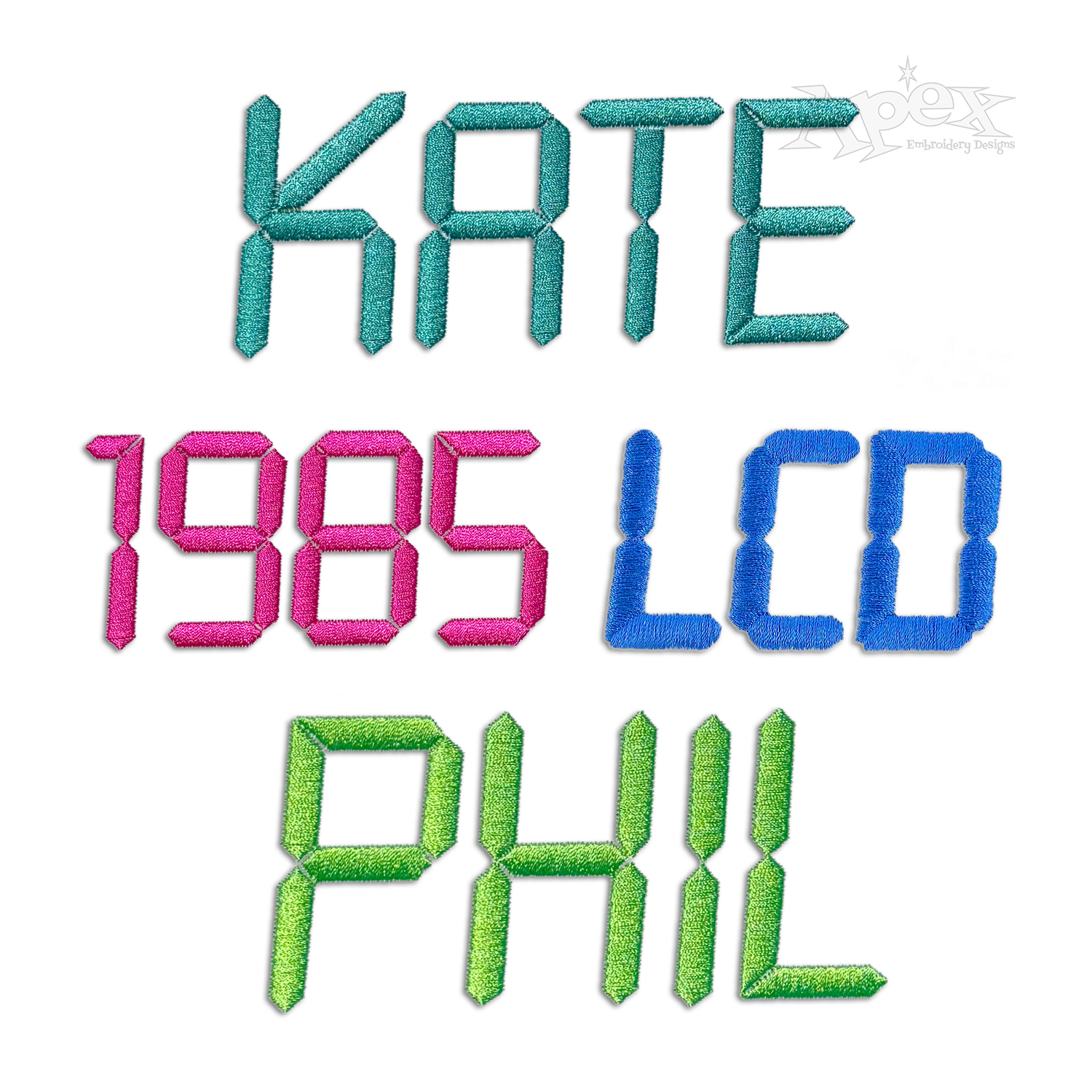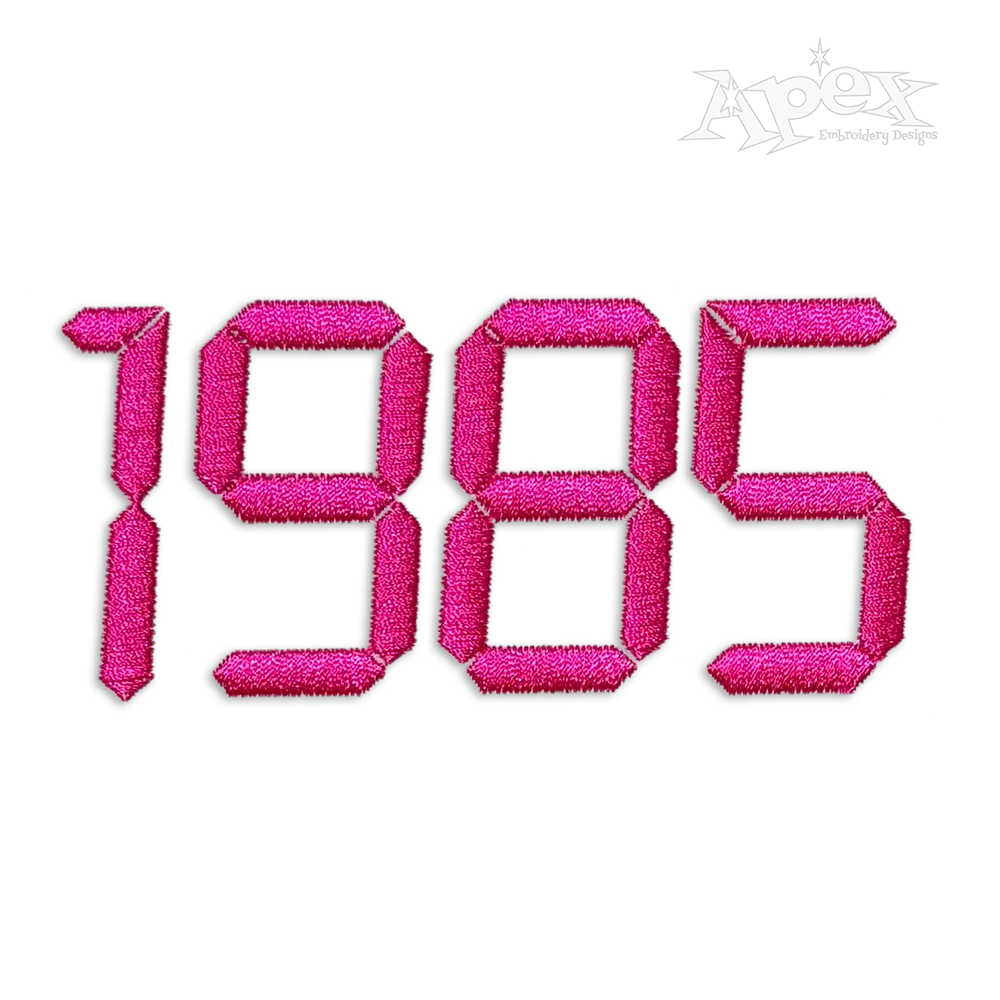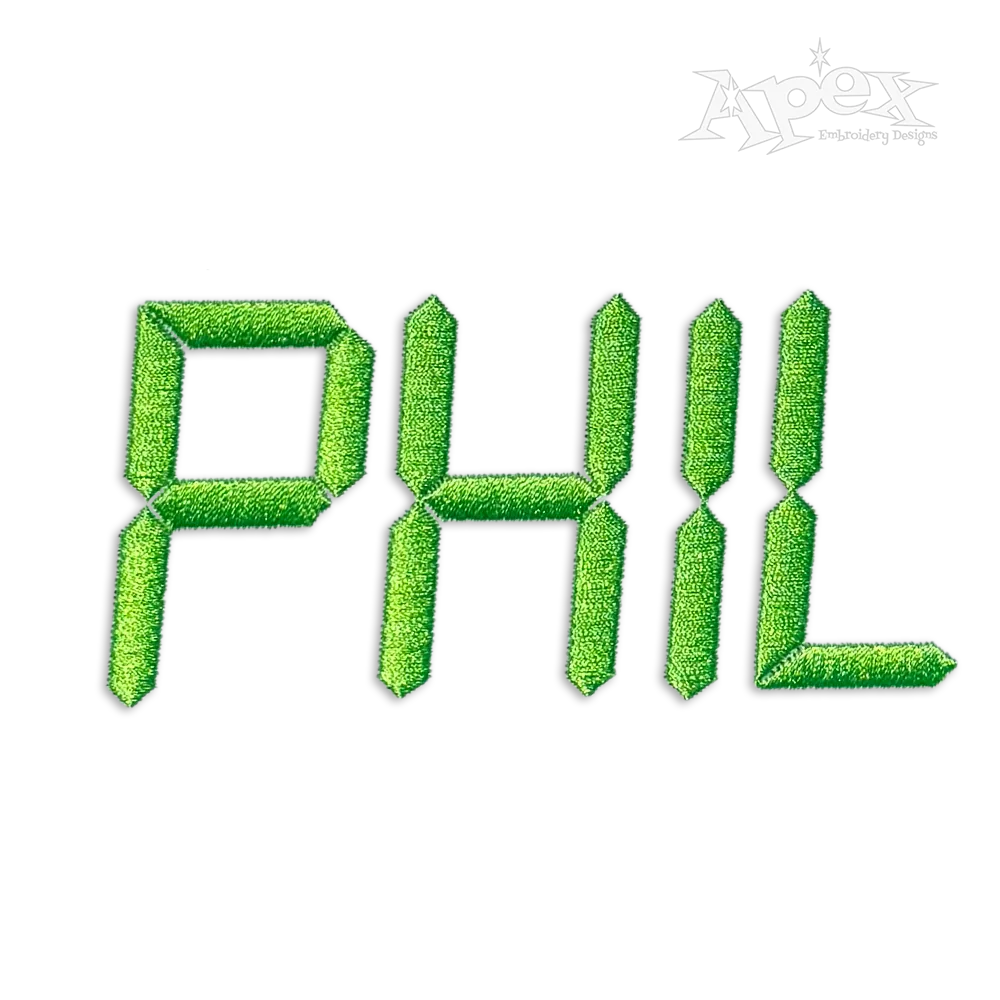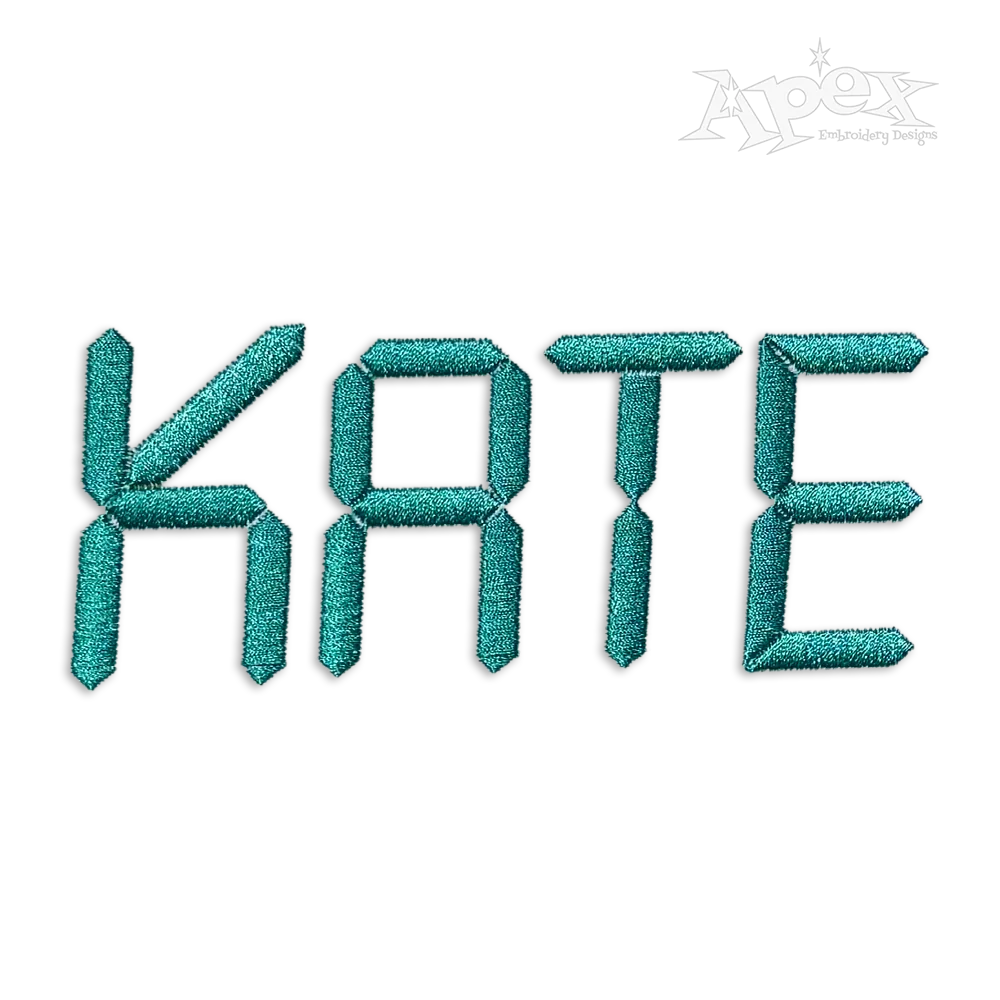
Digital LCD Embroidery Font
When drafting the Digital LCD Embroidery Font, our studio drew inspiration from the glowing, segmented charm of classic electronic timepieces, retro alarm clocks, and vintage telemetry panels. There is an unmistakable cadence to these segmented letterforms—every bar feels deliberate, angular, and unapologetically modern. Translated from illuminated digital readouts into tactile, dimensional thread art, this satin stitch alphabet brings an energetic, retro-futuristic edge to everyday embroidery, allowing you to stitch dates, scores, coordinates, and monograms with mechanical precision.
Project Ideas for Digital LCD Embroidery Font
The distinctive, segmented aesthetic of this font lends itself effortlessly to projects that demand a sharp, technical, or athletic presence:
- Athletic Milestones & Race Gear: Stitch marathon finish times, personal bests, and bib numbers onto moisture-wicking jackets, running caps, and gym duffel bags.
- Streetwear & Casual Apparel: Embellish collegiate hoodies, windbreakers, or structured canvas jackets with milestone birth years, anniversary dates, or bold typographic slogans.
- Gaming & Tech Accessories: Create personalized gamer tags on padded laptop sleeves, mechanical keyboard carry bags, and cord organizers.
- Personalized Gifting: Design bespoke flight tags, key fobs, and luggage straps for travelers, or stitch high-tech monograms on modern, minimalist toiletry kits.
Because the Digital LCD letterforms feature strict horizontal and vertical geometries, placement alignment is key to achieving that authentic digital readout look:
- Center Chest: Position milestone years or sports timers horizontally across the center chest of sweatshirts for a classic, retro-athletic silhouette.
- Forearm & Sleeve: Align dates or initials vertically or horizontally along the outer sleeve or wrist cuff to evoke the look of a smartwatch or digital instrument.
- Cap Back Arch: Curve or bridge numbers along the rear arch of an unstructured dad hat or snapback for understated streetwear appeal.
- Pocket Overlays: Center a 2-inch date or single initial neatly over a utility pocket on a backpack or tactical apron.
Digital LCD Embroidery Font Craft & Letterform Details
The technical brilliance of a segmented font relies entirely on crisp separation. If stitches bleed into neighboring segments, the digital illusion is lost. During digitization, we meticulously engineered micro-spacing between every horizontal and vertical segment, ensuring each bar retains its sharp, standalone identity on fabric.
Every segment is formed with rich, high-density satin stitches reinforced by a stable, centered walking underlay. By carefully orchestrating the stitch angles across adjoining bars, each segment reflects ambient light slightly differently—mimicking the dynamic, luminous sheen of a true liquid crystal or LED display. The result is clean, durable embroidery that stitches smoothly, holds razor-sharp corners, and remains effortlessly legible across all three sizes.